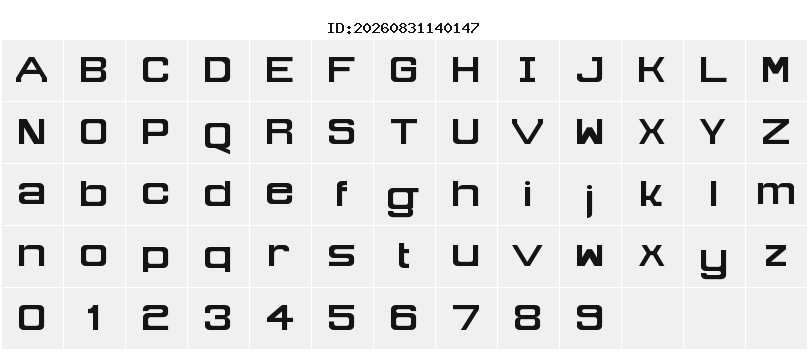
Technomite Preview
• Font Name: Technomite
• Full Font Name: Technomite Regular
• Designer: Daniel Lyons
• Description: ‚ÄúTechnomite‚Äù was built with FontStruct
About Technomite.ttf
Technomite.ttf is a modern, elegant sans-serif font designed for ultimate readability and visual harmony. Perfect for branding, headlines, web design, and print materials.